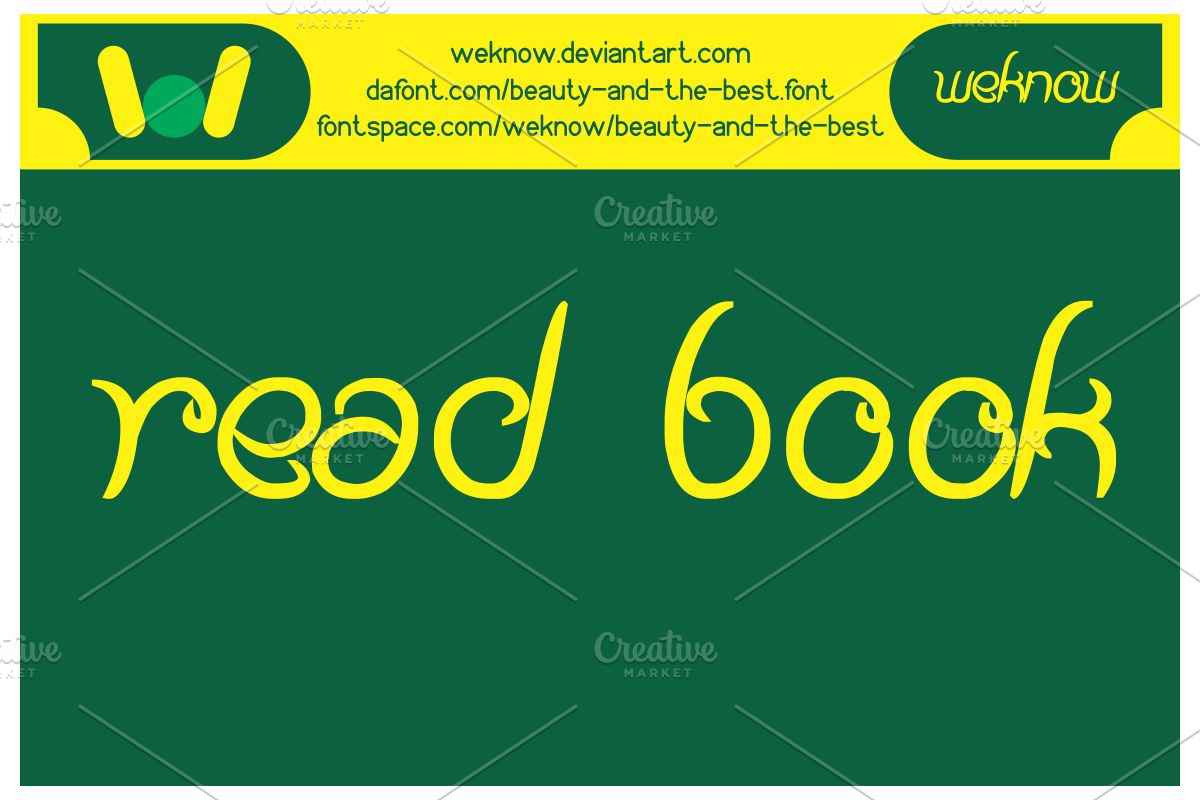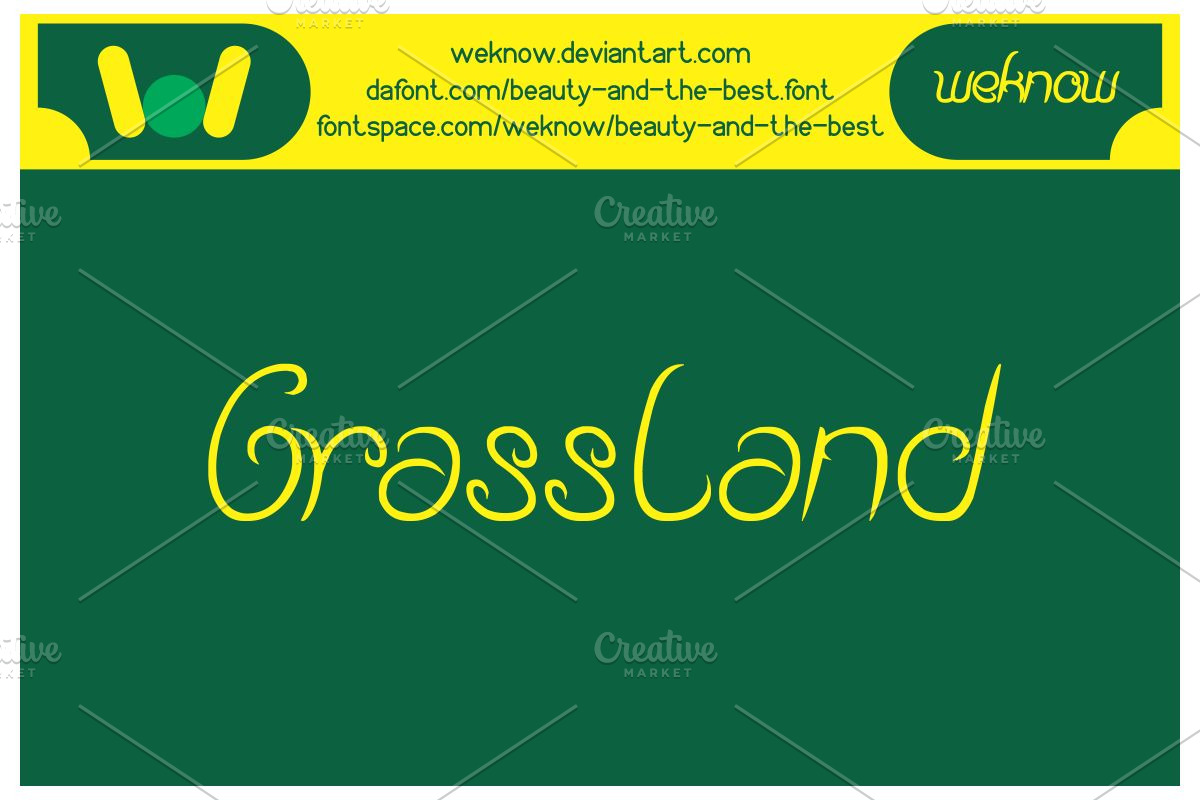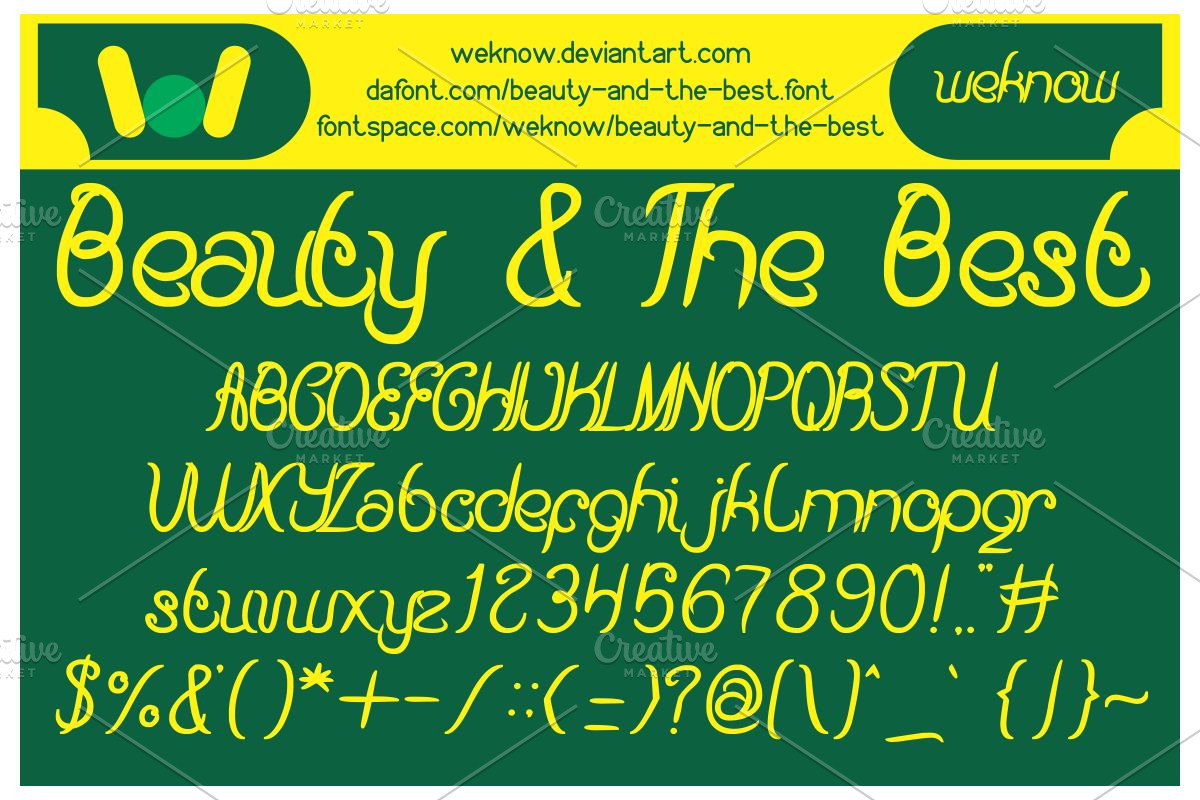
beauty and the best font
beauty and the best font by weknow is a font selected for branding, posters, packaging, typography.
Why beauty and the best font is worth a look
beauty and the best font by weknow fits naturally into Branding, posters, packaging, typography.